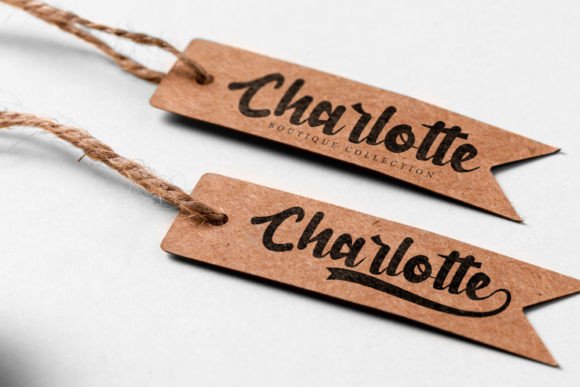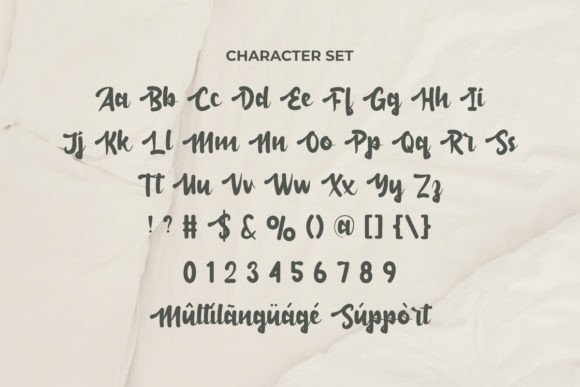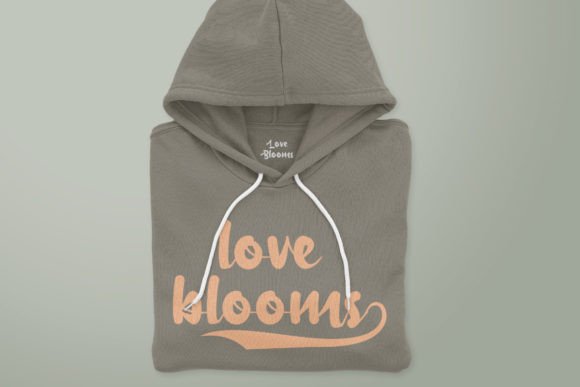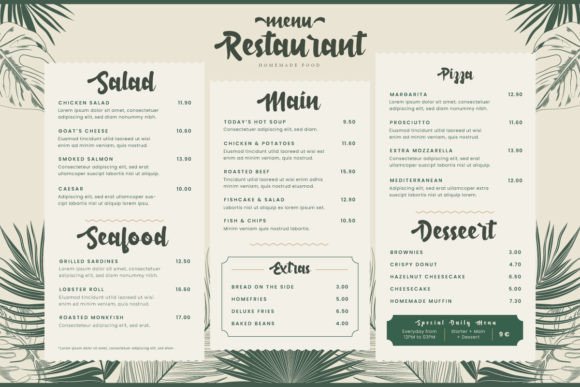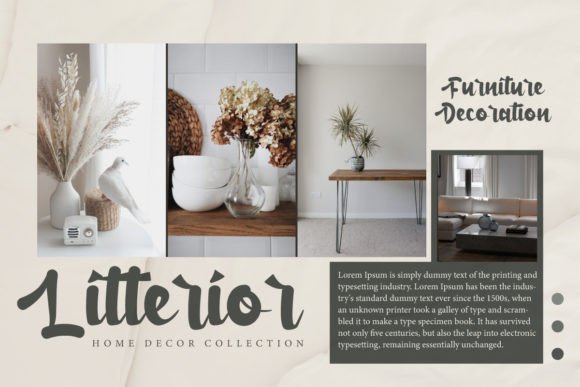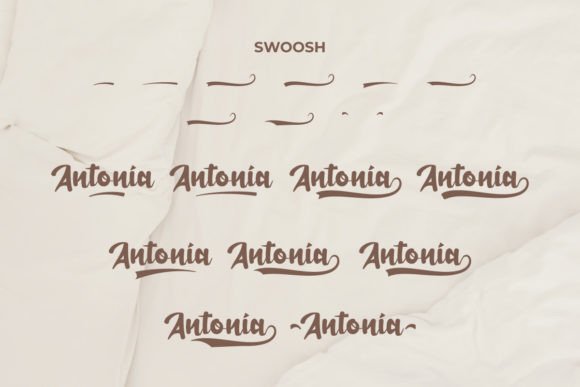
Discover the Elegance of Antonia Font: A Perfect Choice for Designers and Crafters
Are you a designer or crafter looking for a font that exudes charm and elegance? Look no further than Antonia Font. This beautiful handwritten font is perfect for adding a touch of sophistication to any design project. In this article, we’ll explore the features and benefits of Antonia Font, and why it’s a must-have for any creative professional.
The Charm of Antonia Font
Antonia Font feels equally charming and elegant, making it a versatile choice for a wide range of design projects. Its flowing script and delicate lines evoke a sense of romance and whimsy, perfect for creating beautiful wedding invitations, thank you cards, and quotes. Whether you’re designing for a client or working on a personal project, Antonia Font is sure to impress.
One of the best things about Antonia Font is its versatility. It looks stunning on:
- Wedding invitations: Add a touch of elegance to your wedding stationery with Antonia Font.
- Thank you cards: Express your gratitude in style with this beautiful font.
- Quotes: Make your quotes stand out with Antonia Font’s flowing script.
- Greeting cards: Create beautiful greeting cards for any occasion.
- Logos: Add a touch of sophistication to your logo design.
- Business cards: Stand out from the crowd with Antonia Font’s elegant script.
Antonia Font is PUA encoded, which means you can access all the glyphs and ligatures with ease. This makes it easy to customize your designs and add unique touches to your projects. With PUA encoding, you can:
- Access a wide range of glyphs and ligatures.
- Easily customize your designs.
- Add unique touches to your projects.
Why Designers and Crafters Love Antonia Font
So, why do designers and crafters love Antonia Font? Here are just a few reasons:
- Elegance: Antonia Font exudes elegance and sophistication, making it perfect for high-end designs.
- Versatility: This font is versatile and can be used for a wide range of design projects.
- Easy to use: With PUA encoding, Antonia Font is easy to use and customize.
- Unique: Antonia Font’s flowing script and delicate lines make it a unique and eye-catching choice.
Tips for Using Antonia Font
Here are a few tips for using Antonia Font in your designs:
- Pair it with a sans-serif font: Antonia Font pairs beautifully with sans-serif fonts, creating a stunning contrast.
- Use it for headings: Antonia Font is perfect for headings and titles, adding a touch of elegance to your designs.
- Experiment with colors: Try pairing Antonia Font with different colors to create a unique and eye-catching design.